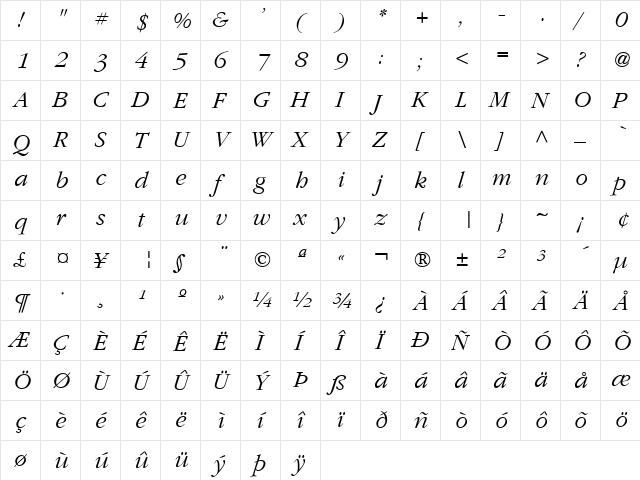
Gatineau Italic
Design Context for Gatineau Typeface
Gatineau is a composed and adaptable typeface that performs quietly and consistently across a wide range of design contexts. The dynamic lean of this cut emphasises speed and emphasis in any layout.
Pro Tip: Try Gatineau for annotation and caption copy alongside an upright companion — the contrast in angle creates a dynamic but ordered typographic system.